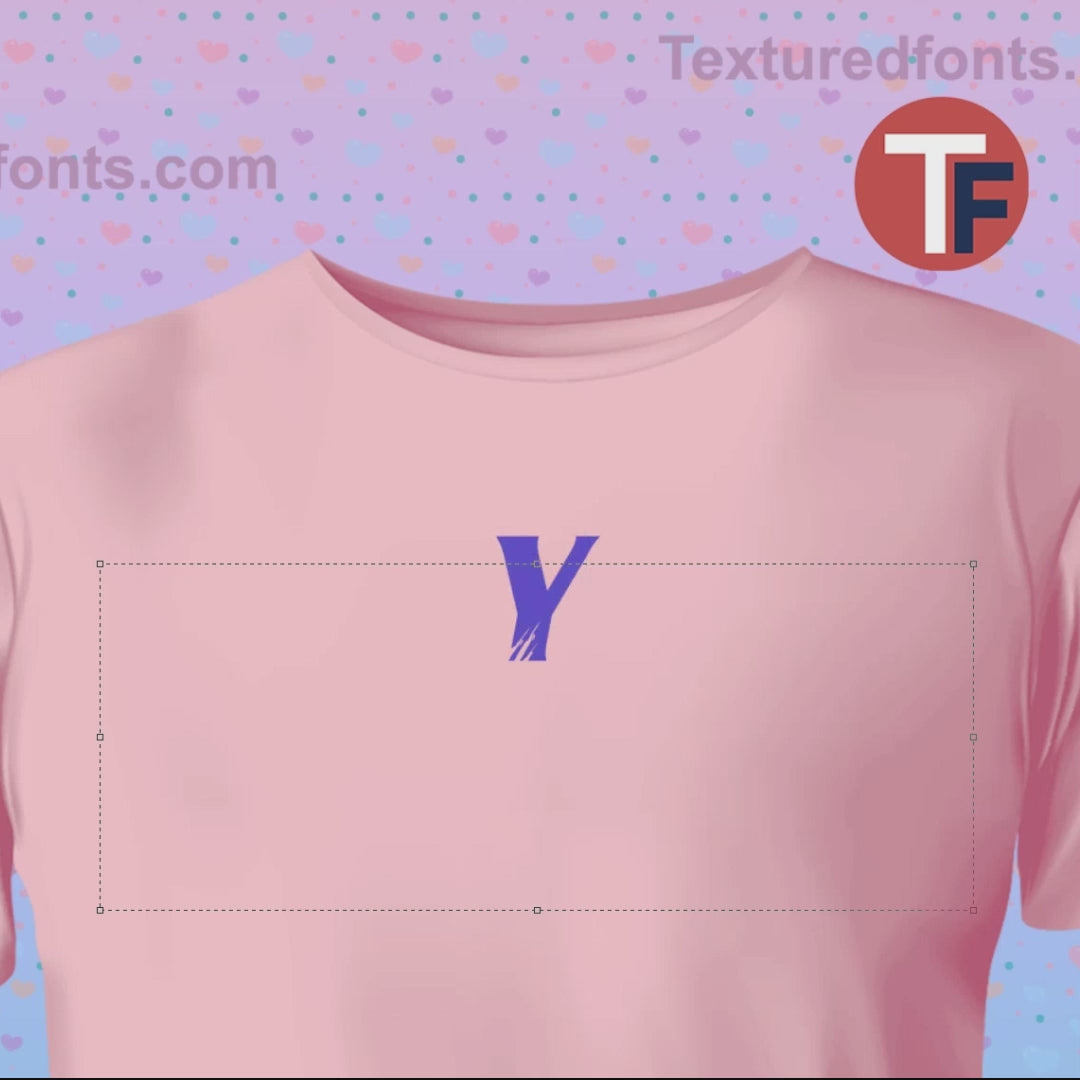
Monster Font
Monster Font: Unleash Your Creative Beasts
Step into a world of whimsy and wonder with the Monster font, a playful and bold typeface inspired by mythical creatures and fairy-tale fiends. Ideal for projects that require a dash of fun and fantasy, such as children's books, Halloween crafts, or game graphics, the Monster font brings stories and characters to life with its unique and lively style.
The Monster font is tremendously versatile, perfect for:
- Event Invitations: Create eye-catching invites for monster-themed parties or Halloween bashes.
- Video Game Graphics: Enhance in-game text with this font to emphasize a fun, fantastical theme.
- Children’s Merchandise: Apply it to apparel, toys, and accessories that cater to young audiences.
- Promotional Materials: Draw attention with unique flyers and posters for events or product launches.
With its dynamic, fun design and versatile usage, the Monster font is your go-to for injecting creativity and charm into your projects. Whether crafting spooky decorations, designing interactive media, or engaging young learners, this font ensures your work stands out and captures the imagination.